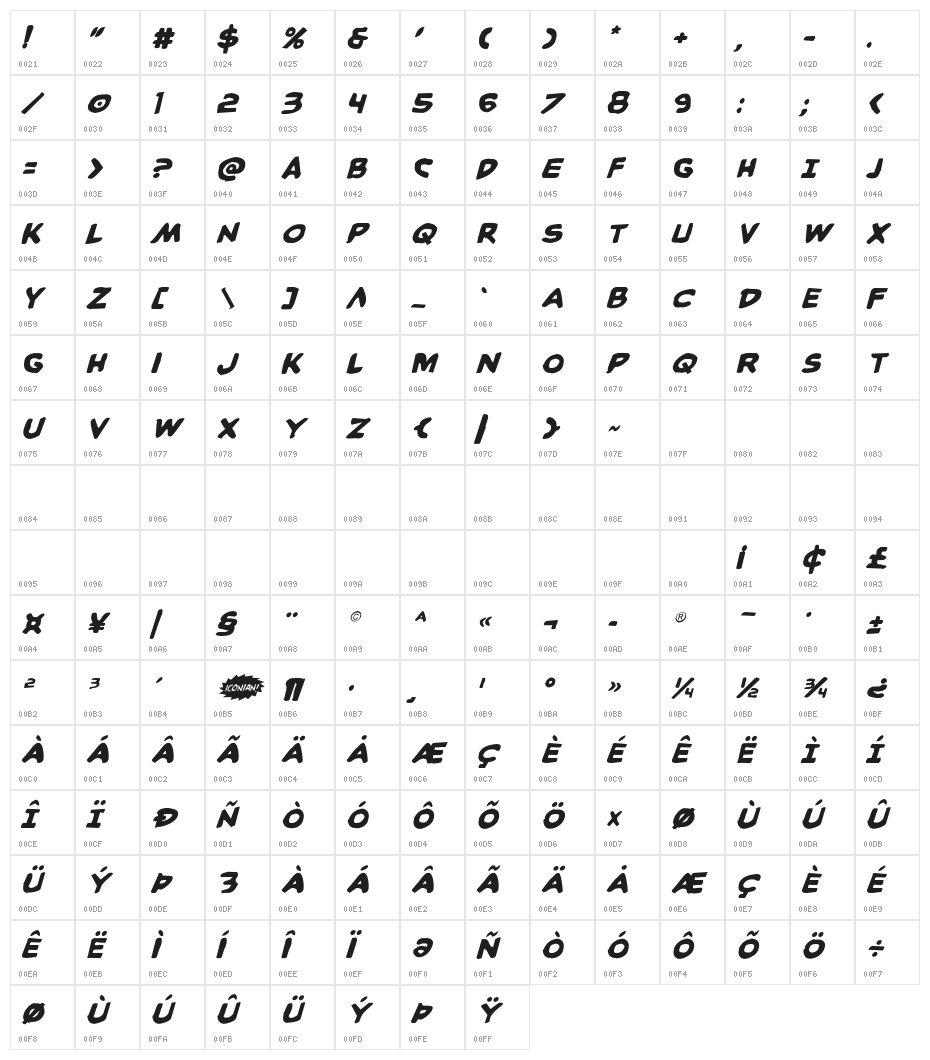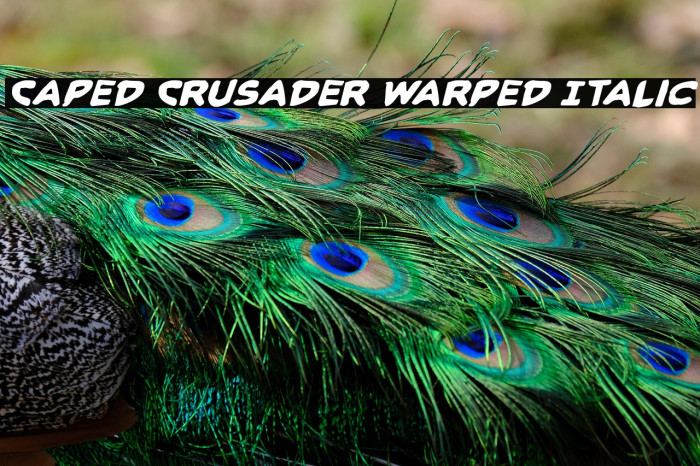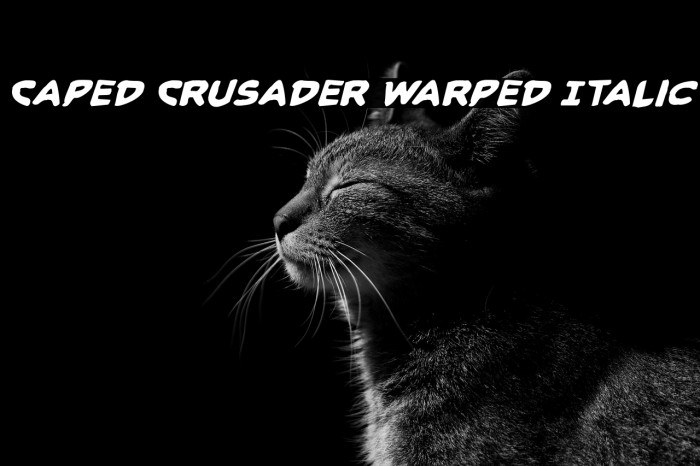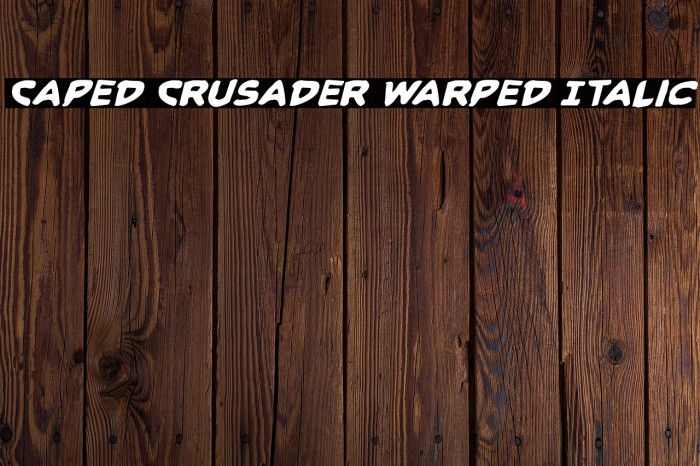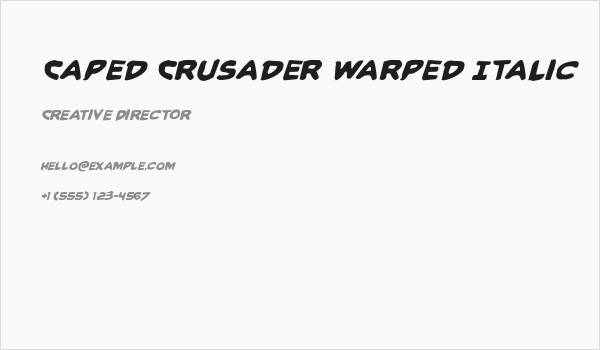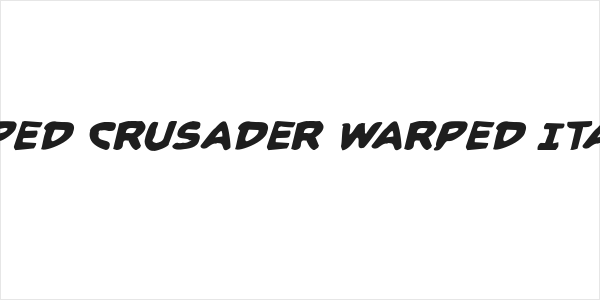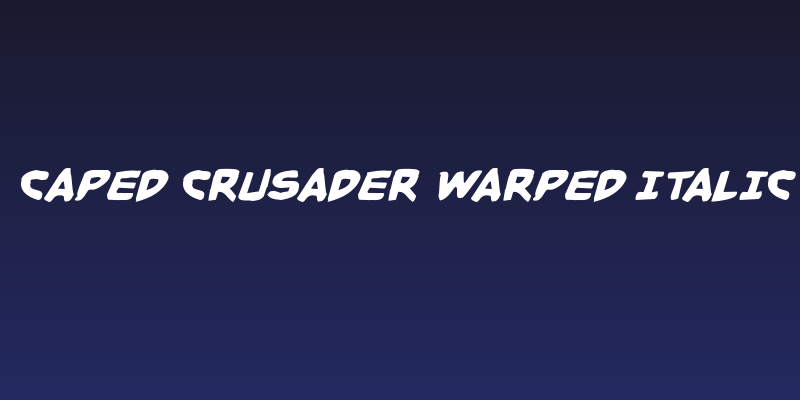
Caped Crusader Warped Italic Font
Caped Crusader Warped Italic Description
This font features a bold and dynamic style with a distinct italic slant, giving it a sense of motion and energy. The characters are thick and robust, with a slightly warped appearance that adds a playful and adventurous feel. The uppercase and lowercase letters maintain a consistent style, with rounded edges and a strong presence. The numerals and special characters follow the same bold and energetic design, making them stand out prominently. This font's unique style is ideal for projects that require a sense of excitement and boldness.
CAPED-CRUSADER-WARPED-ITALIC UPPERCASE
CAPED-CRUSADER-WARPED-ITALIC LOWERCASE
CAPED-CRUSADER-WARPED-ITALIC OTHER CHARS
| Proposed Projects | Ideal for comic book titles, action-themed posters, video game graphics, and branding for energetic products. |